Best Free Display Fonts
There are primarily two type of typefaces text typeface and display typeface. Text type faces are used to write readable small letters often used to write contents of websites books etc… Display type are usually bigger typefaces (above 14 points ), usually used for branding.
Display fonts have unique characteristics there for it holds a very strong personality . Display fonts are usually designed for larger screens to grab user attention.
Today in this post we have collected a good set of free display fonts which are seamlessly integrated into your designs. These fonts are good for posters,flyers,and create brand logos etc…
NEWCAPS – Bold Condensed Headline with 4 Styles
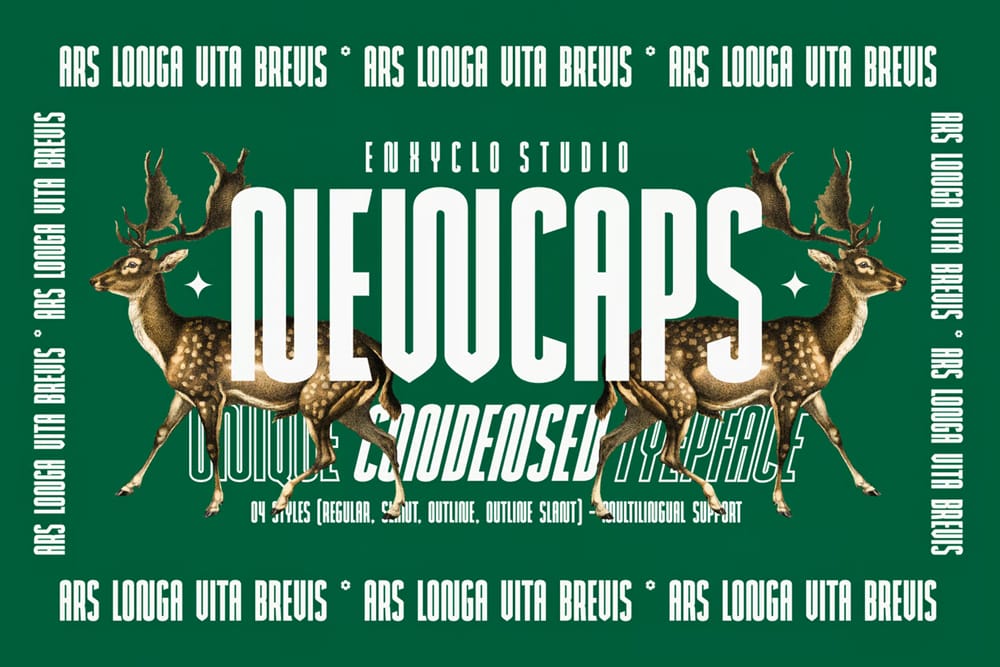
Linego Typeface
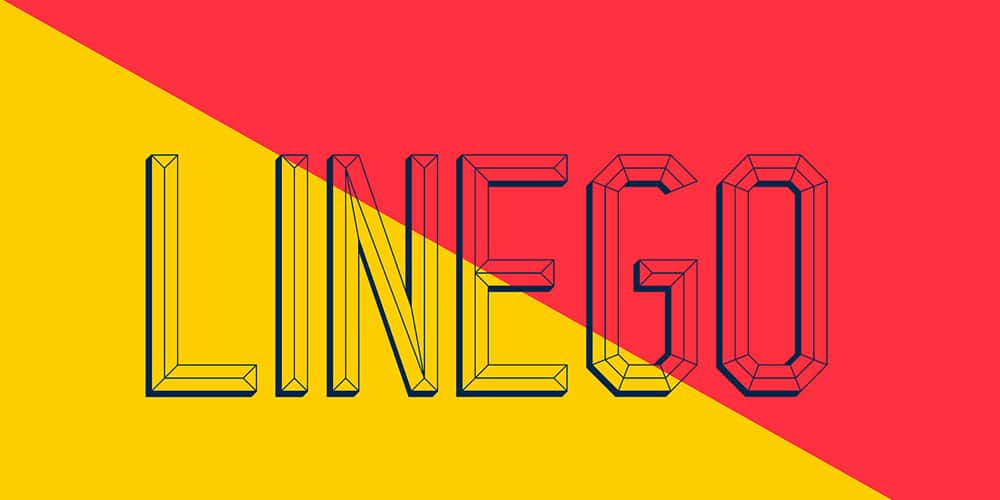
Sernes Font
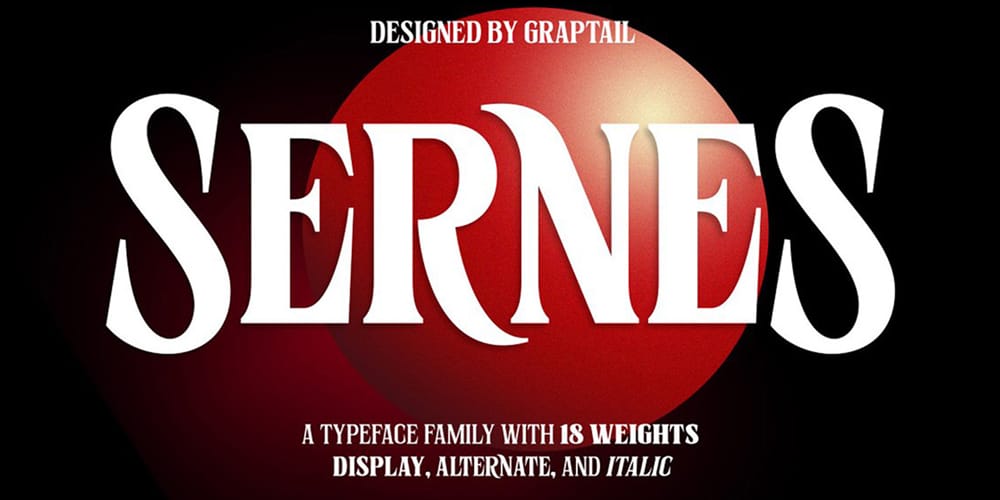
Alphonse – Headline Script Font
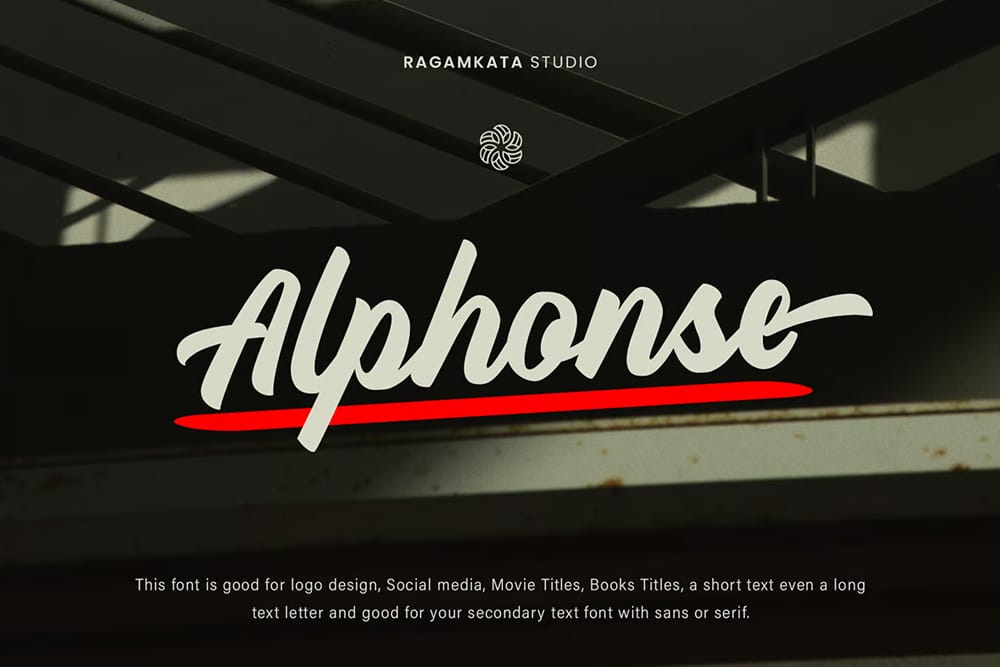
Contrast Typeface
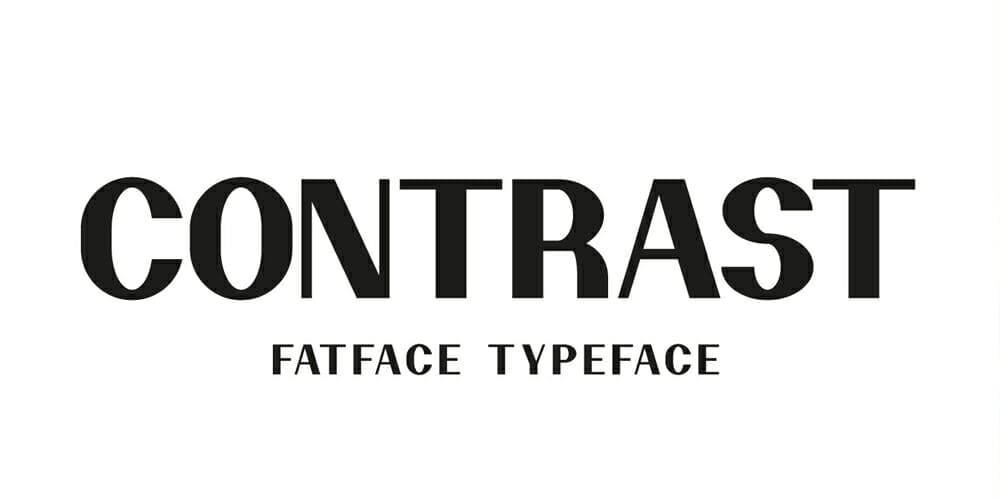
Land Of Fear Typeface
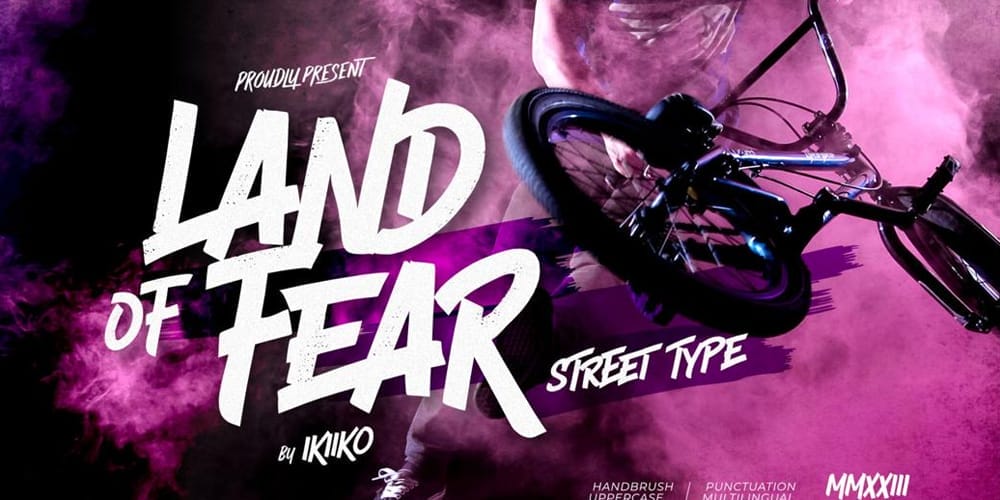
FjallaOne
BISMARK – Display Typeface
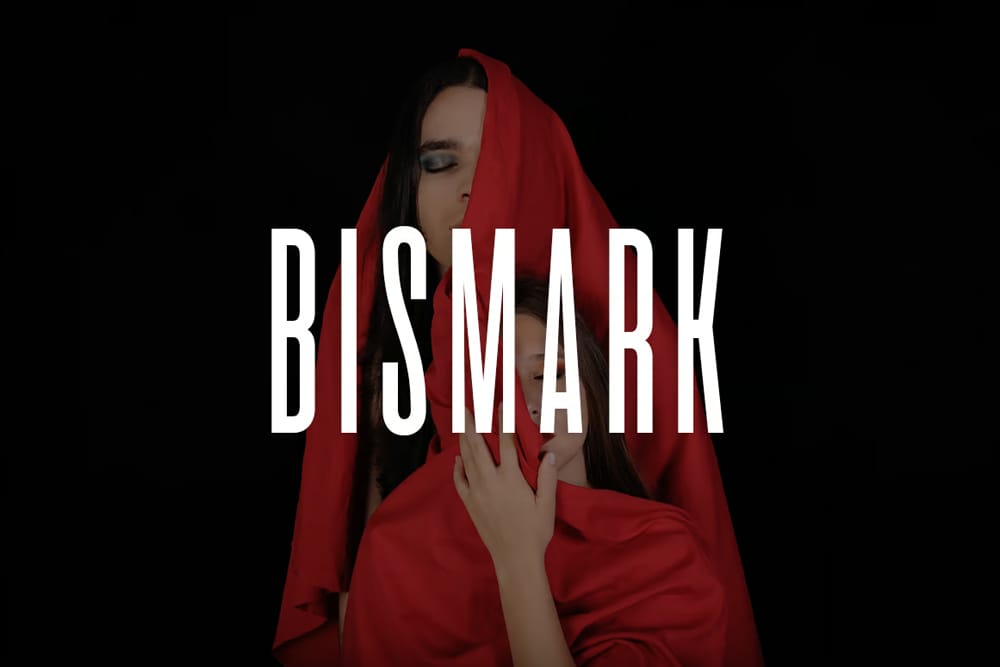
Archivo Black
Sunday Lemon Font
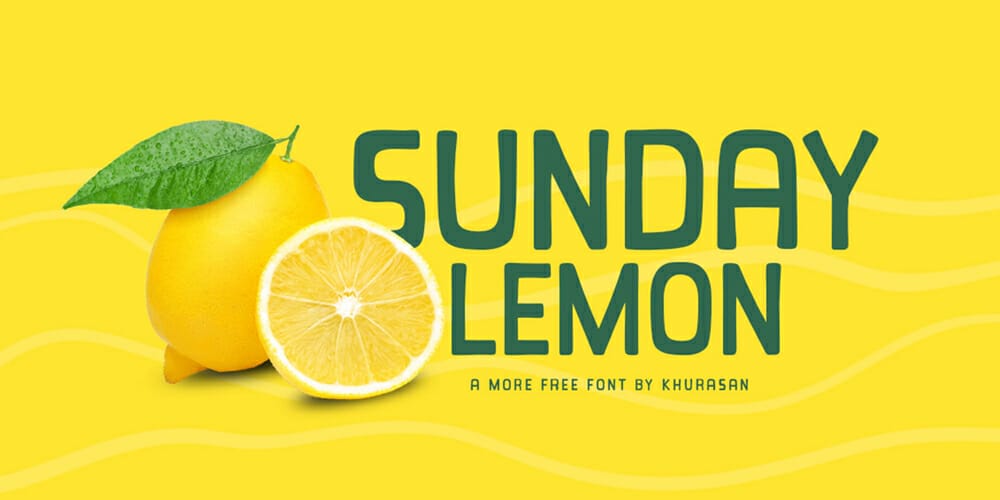
Unbounded
Monigue
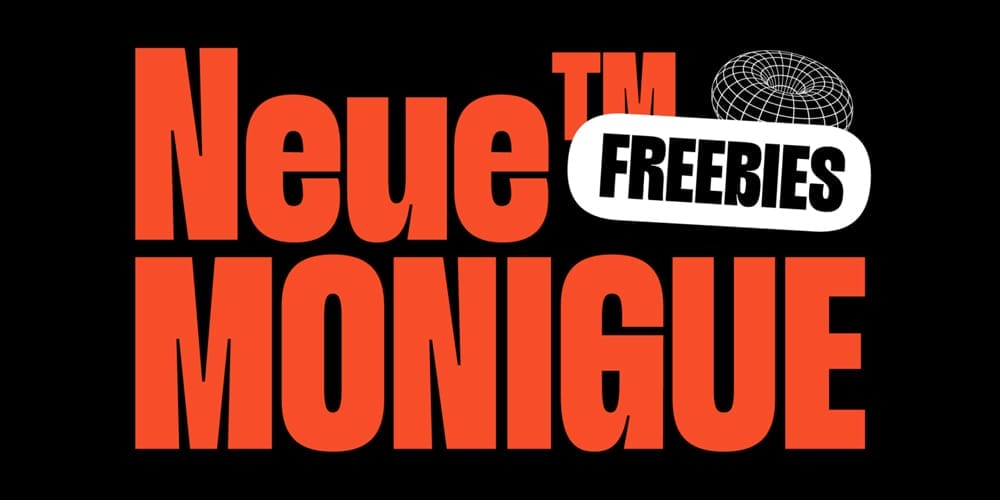
Phudu Font
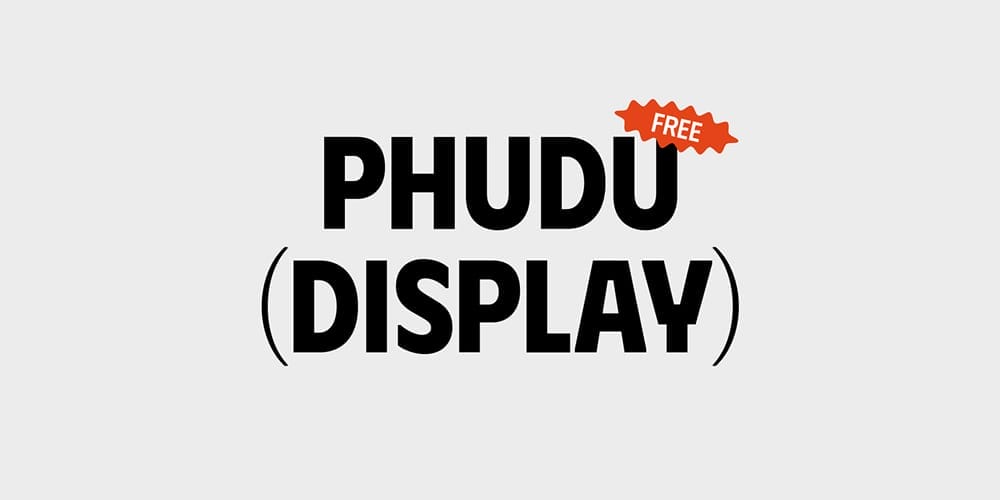
Syne
Cakra Typeface
Lexa Font
Bebas Neue
Kuga Font
AKONY
March Evoked
Basteleur
Magiel
Singly Linked Font
F1.8
Hubot Sans
Eva Poshy Font
Space Grotesk
Nouveau
Druzhok Font
Three Thousand Font
Frick
Getai Grotesk Display
Sinistre
Snorkad Typeface
Gnomon
Kunika
Bricolage Grotesque
Funnel Display
Fraunces
Sorts Mill Goudy
Hey Patrick Font
Jolley Display
Nastup Typeface
Corbby Font
Gothicha Medieval Sans
Daft Display Font
Rosette
Fathead Display Font
League Gothic
DT Phudu
Cabinet
Coffee Terrace Font
Lemon Popsicle Font
Motley Forces Font
Larrikin
Friday Lovers
Santello Font
Polka
Rokurou Font
Spaccio Display
Miracle Display Font
Rakyat Font
Drumnik
Twinses Font
Displayed Typeface
Comicy Font
Tondo MNL
Despair Display
EP Boxi
Acosta Font
Xillian Font
Konstrukta Type
Recia Display
Arck Font
Dirtyline Font
DT Random Display Font
Nice Sugar Font
RNS Estero Font
Toska Font
Picnic
Exomoon Font
Habanero Font
ZT Shago
Aventine Typeface
Uniku Typeface
Rora Font
Sugiono Font
Zorz Font
Stop Bullying Font
Meshed Display
Apasih Font
Nonsens Playful Spooky Display Font
HerFavorite Font
Fonzie Display
Happy Patrick Font
SK Astron Font
Ramp Font
Gawker Typeface
Brix Typeface
OTF Glusp
Mango Grotesque
Sparky Stones Font
Deserta Typeface
Display Scout
Grisly Beast
Kik
High Heat Typeface
Angelika Playful
Neoda Font
Like Snow Font
Kalatas Typeface
B-sign Font
EFCO Rolgates Font
Daray Font
Protomo Font
StreetSign Sans
Getaway Bold Display Font
Radiante Gothic Display Typeface
Draco
Jengkol Font
Wiggly Curves Font
Ilyas
Vokiar Striped Display Font
Arina Font
CookieRun Typeface
Plomo Typeface
Lizza Font
Hey Haters Font
Elevate Sans
La Bruja A Display Typeface
Taste Of Heaven
Milkman Combination Display Font
Males Font
Judge
Bajurie Font
Party Confetti Font
Nitrogine
Sachabo Condensed
Eubergine Font
First Fun Typeface
Rotund Font
GAP Font
Big Fat Boii Typeface
Gratis Font
Blankit
Milagre Typeface
Pumuqui Font
WTF Bold Groove Font
Complain Font
Datie Display
TF Wasted Growth Font
Vertiky Typeface
Saturday Night
Better Hobby Display Font
Jellee
Urban Space Font
Curandera
Strandhill Font
Xstra Tall Typeface
Estacion Display
Salonikia Font
Bouwly Regular
Homespun
Star Cartoon Font
Bore – Bold Industrial Font
Cyrillic Style Display Font
Sao Torpes Font
Roky Font
Rebeqa Typeface
NexType Typeface
Haco Font
Gala402 Font
Chunk Typeface
Airnt Font
Ampero Font
Formula
GarciaMarquez Typeface
Genesys Font
Alfie Marker
Masker Area Font
South Font
Excratch Futuristic Font
Phazed
Marson Display
Fin Serif Display
Brique Font
Clockwork Lemon Typeface
No Virus Font
Ludeco Font
Parkford Typeface
Rimma Sans Bold Typeface
Bigwhale Display Condesed Font
Dalfitra Typeface
Bogam Typeface
Bloonk Bubble Display Typeface
Leap Font
Bitalo
Wonome Font
Exile Font
Amondo Display
Molen Font
Lililion Font
Rusty Hooks Font
Stone Board Vintage Display Font
CAT Eckmann
Super Boys
Yeasty Flavors Font
Ambery Garden Font
Bisdak Display
Wavy Font
Trolls Font
Big Mike Font
Forestion Font
Edge Display Font
Jupiter Font
Gover Font
Nekoto Font
Prodelt Co
Alexandria Font
Bergisch Font
Sirotica Typeface
Zeen Font
Tabitha Font
Neoneon Glowing Typeface
Raydis Font
Fagrak
Wonder Night Font
Lettown Hills Font
Valorous Typeface
Pipanganan Display Typeface
Thunder Typeface
Masego Font
Qwacky Font
Goetz Font
Tropikal Typeface
Bear Hunt
Bizzarra Typeface
Overt Font
Jangkuy Expanded Typeface
Tabuti Font
New Uncial Display
Laced Days
Impera
Santhony Bold Font
Gladly Accept Font
Monkey92 Font
Margaret Serif Typeface
Bolden Display Font
Selant Font
Harbinger Caps
Milk Carton
Far Out Display Font
Quakep Font
DAMN
Hyrbo Font
Lida Font
Gabana Typeface
Castillo Font
Angelika Playfull
Barely Enough Font
A Black Lives
Leiko Font
Usually Font
Bebal Bold Font
BLKND Font
Matrixoid Thick Font
Solide Mirage
Theater Typeface
Mendung Font
Pasti
Gourds Font
Febre Font
Berliner Neue Typeface
Giant Boss
Raigarh Typeface
Mouldy Cheese Font
Doppelganger Typeface
Asthetik Font
Oito Typeface
Resin Font
Treefingers Typeface
Leorio Typewritter Font
Joplin Sans Serif Font
Dashboard Display Typeface
Montreau Font
Migha Variable Font
Hugo Font
Monk Typeface
Hover Font
ST Brigantina Font
Poison Typeface
Hugamour Font
Maragsâ Typeface
Cipitillo Font
Hamburg Hand Font
Lkdown Font
Supremacy Typeface
Milky Coffee Font
Nim Typeface
Lerty Font
Metaphor Typeface
Red Rose Typeface
Maler Font
Trickshot Font
Supply Center Font
Yumaro
Nafas Manual Font
November Sans
Brut Gothic Font
Romanzo
Hundrea Display Typeface
Gold Typeface
Fracture Font
Redwing Typeface
Sofia Typeface
Shaumy Font
Kaarosta Font
Spectacle
Neothic Font
Shadow 60 Font
Dovetail Typeface
Batangas
Avara
Skyscapers
Pisang Font
Jreeng Font
Beway Font
Mainframe
NY Bricks
MAK Font
Dzimaa
Gratise Font
Drunk Tank Font
Memesique
Agnes Font
Bulu Kaki Font
Bowler
Bisect Display Font
Obrazec Font
Goratrix Font
Virus Killer Font
Awesome Car Font
Eatday Font
Rahovets Font
Format 1452
Gose Font
Volume Dealer Typeface
Wata Font
Leentank Typeface
Lucky Decorative Display Font
Afronik Font
Outward
BBT Baby Bus Font
Reborn Display Font
Boston Font
Salonikia Font
Crimstone Geometric Font
Emberly Typeface
Shourtcut Retro Themed Font
Crafto
Pomidor Font
Moniqa Typeface
Forta Display Font
Rammstein Display Font
Zews Display Font
Fat Font V.1.2
36 Days Typeface
Config Ultra Font
Disket Mono
Monoround
Ammonite Display Font
Rany Typeface
Woodchuck
Fulbo – Football-Style Display Font
Verasa Typeface
Krisha Font
Misto Font
Vintage Display Fonts
Best Display Fonts
STFU – Modern Blackletter Display Font
Frizon Typeface
Quandco Font
Hypothesis Display Font
Abingdon Font
+3 Y2K Typeface
Arturito Typeface
Grames Font
Sayfull Font
Adca Geometric Typeface
Aqum Font
Angkasa Type
Metro Uber Typeface
Histeria Font
Galhau Display
Galaxy Font
Vermillion Display Font
Salt Display Typeface
Aneo DIsplay Typeface
Genuine Font
Zoika Display Font
Airment Display Font
Pamu Futuristic Display Font
Astron Sci Fi Display Font
Comic Tantrum Display Font
Rotulista Display Font
Free Geometric Color Font
Portage Display Font
Too Many Cowboys Display Font
Technique Font
Genis Font
Caldas Life Display Font
Mordak Display Block Font
Booster Vintage Display Script Font
Trappist Font
Graffismo Font
Hey Lucky Display Font
Kubos Geometric Display Typeface
BigBro Free Font
Timothy Hand Drawn Font
Apex Mk3 Display Typeface
Quittance Font
Dozen Font
Rabsy Font
Moalang Display Font
Stanley Typeface
Ocean Typeface
Montenegrin Font
Boris
Dakwart Letter Display Font
Tangak Display Font
Zero Mojo Display Font
Sephyr Display Typeface
Gorod Font
Sequel Modern Font
Space Font
Shnobel Display Typeface
Rousseau Deco Font
Masquerouge Vintage Display Font
Animosa Font
Sontoloyo Display Font
Boisu Font
Big Shoulders Display Font
Library 3 AM Display Typeface
The Circus Display Font
Coco Display Font
Evaa Display Font
Cramaten
Bondi Font
Barbari Textured Typeface
Rokies Display Font
Risque Display Font
Markh Font
Kensmark Slanted Typeface
Poppy Flowers Display Font
Ike
Yeager Display Typeface
Finland Rounded Font
Grey Display Font
AmperSleek Typeface
Hugmate
Cout Font
Oferta Do Dia Font
Rock N Roll Textured Brush Font
Coffee Mood Font
Unttld Basic Typeface
Kielo Font
Vintii Font
Mathison Display Font
Gustolle Display SVG Font
Morena Display Typeface
Ezequiel 25:17 Free Font
Delogy Display Font
Akrotiri Display Font
Monolith Typeface
UStroke Font
Mandorlato Font
Block Font
Roadster Font
Eighties Font
Avera Font
Rowan & Royal Font
Borsok Font
Lokka Geometric Display Typeface
Facon Font
Janji Neue Typeface
Sagoma Font
Snot Display Font
Potra Typeface
West Side Font
518 Font
Gorem Typeface
Abster Font
Relapse Font
MD Tall Font
Elalba Display Font
Cubao Free Display Typeface
Cunia Typeface
Judo Font
Argon Font
Rowdy Pro Free Font
Serico Font
Jelani Display Font
Atalanta Typeface
Bolden Font
Luxineae Font
Long Johnson Font
WT Bradford Font
Colus Font
Facultad Display Sans
Ridgeline 201 Display Typeface
Geizer Font
Empire Font
Hayhaily Typeface
Subjective Display Font
Borough Grotesk
Free Traveling Typeface
Too Many Cowboys Typeface
Lysis Font
Nikoleta Font
Stephanie Font
Lost Childhood Font
Via Massena Typeface
Cookit Font
Cheque Font
Love Font
Zappat Font
Citrica Typeface
Monotonia Display Typeface
Shkoder 1989 Typeface
Reach Font
Kano Typeface
Fredoka Font
Balans Font
Bonkers Font
Cenotaph Titling Typeface
Zaio Rounded Font
Black Mask Typeface
Free Range Sans Display Font
La Viola Script Display Font
Odale Typeface
Canvas Font
Big John / Slim Joe – Free Font
Blenda Script Font
Lev Black Distressed
Sporty Free Font
Superlative Free Font
Duma Bold
Monitorica Free Font
Bravery Font
Nexa Rust Free Font (Free Only 5 Weights)
Goudy Bookletter
Loxo Free Font
Draft Display Free Font
Orbitron
Atvice Display Font
Sonix Free Font
Carpet
Scratch Typeface
Disclaimer Free Font
Praho
Liberca Typeface
Baron – Best Free Display Fonts